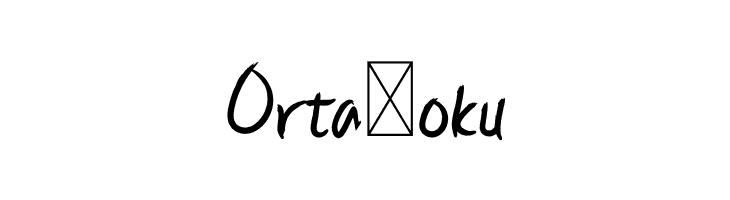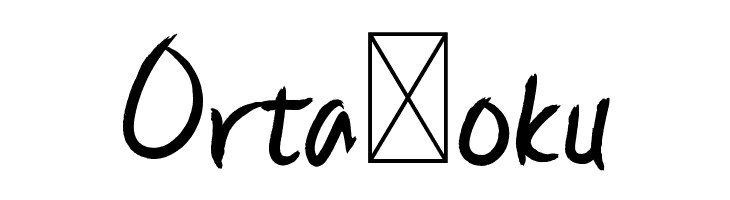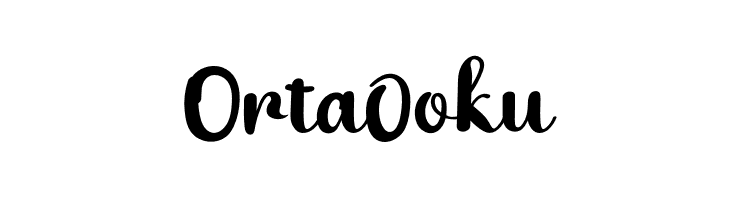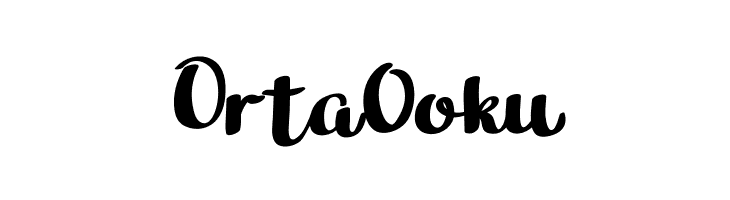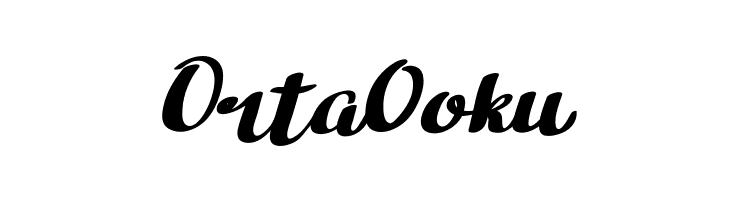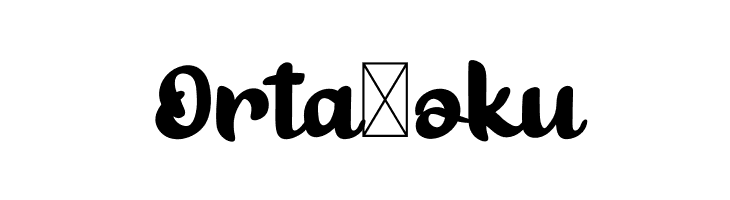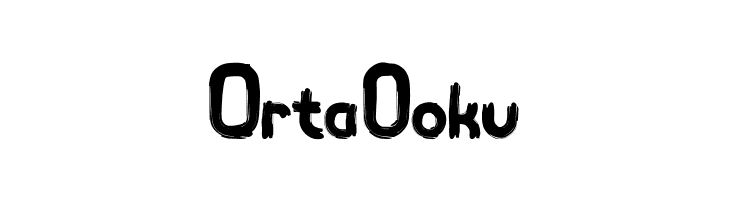
• Angle Rose
A whimsical, hand-drawn font with tall, slender letterforms and playful design.
• Angle Rose Regular
A whimsical, handwritten font with thin, elongated strokes and playful curves.
• Antreas Regular
A bold, hand-painted style font with a textured, artistic finish.
• Aurella-Script
A graceful script font with flowing cursive letters and decorative swashes.
• Babang
A bold, playful script font with a handwritten feel.
• Ballyst
A dynamic, handwritten-style font with a playful and energetic character.
• Ballyst Regular
A lively handwritten font with fluid strokes and dynamic character.
• Bathi
A bold, flowing script font with smooth, rounded edges and consistent stroke width.
• Bathi Italic
A bold, italic script font with high contrast and dynamic flow.
• Bester Keefi Personal Use
A bold, playful script font with rounded strokes and a friendly, handwritten style.